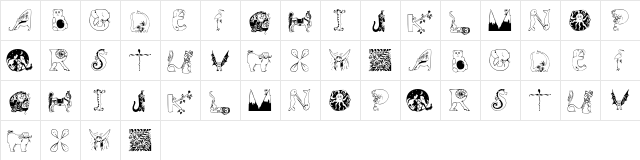
Animal Initials Regular
Design Context for Animal Initials Typeface
Animal Initials is a composed and adaptable typeface that performs quietly and consistently across a wide range of design contexts.